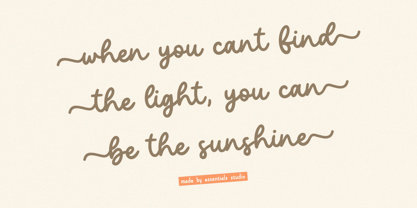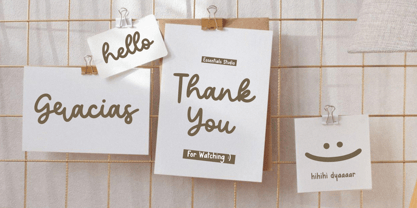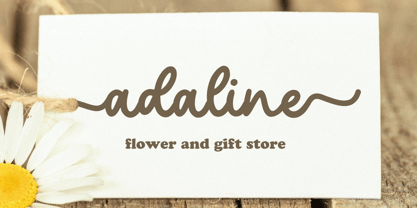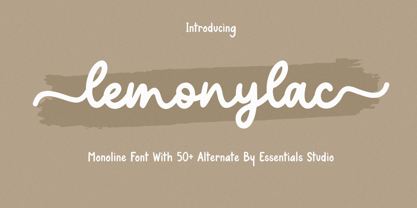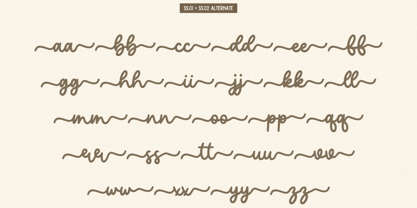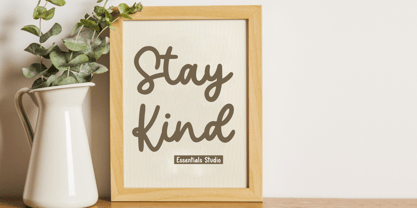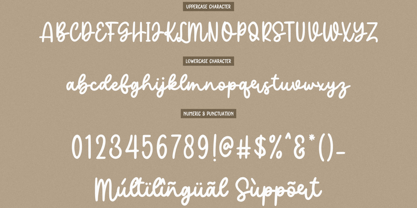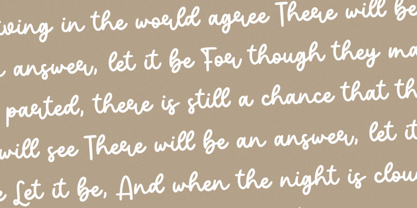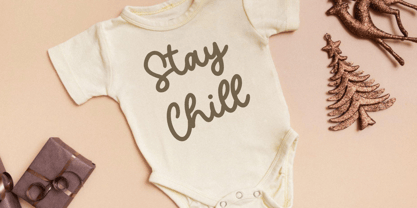
Lemonylac
by Essentials Studio
The Lemonylac Font Family was designed by Annas Rifky Anhar and published by Essentials Studio. Lemonylac contains 1 styles.
Introducing Lemonylac, a contemporary monoline marvel from the imaginative world of Essentials Studio. With its sleek design, Lemonylac stands as a superior choice for elevating your product packaging and strengthening brand identity. Imagine energizing your magazines with this dynamic font, or bringing a dash of sophistication to your social media presence. Whether you're adorning your wedding invitations with an elegant touch or simply making a statement over a background, Lemonylac is your perfect partner. Indulge in the modern charm of Lemonylac and let your words create a vivid impression.
Designers: Annas Rifky Anhar
Publisher: Essentials Studio
Foundry: Essentials Studio
Design Owner: Essentials Studio